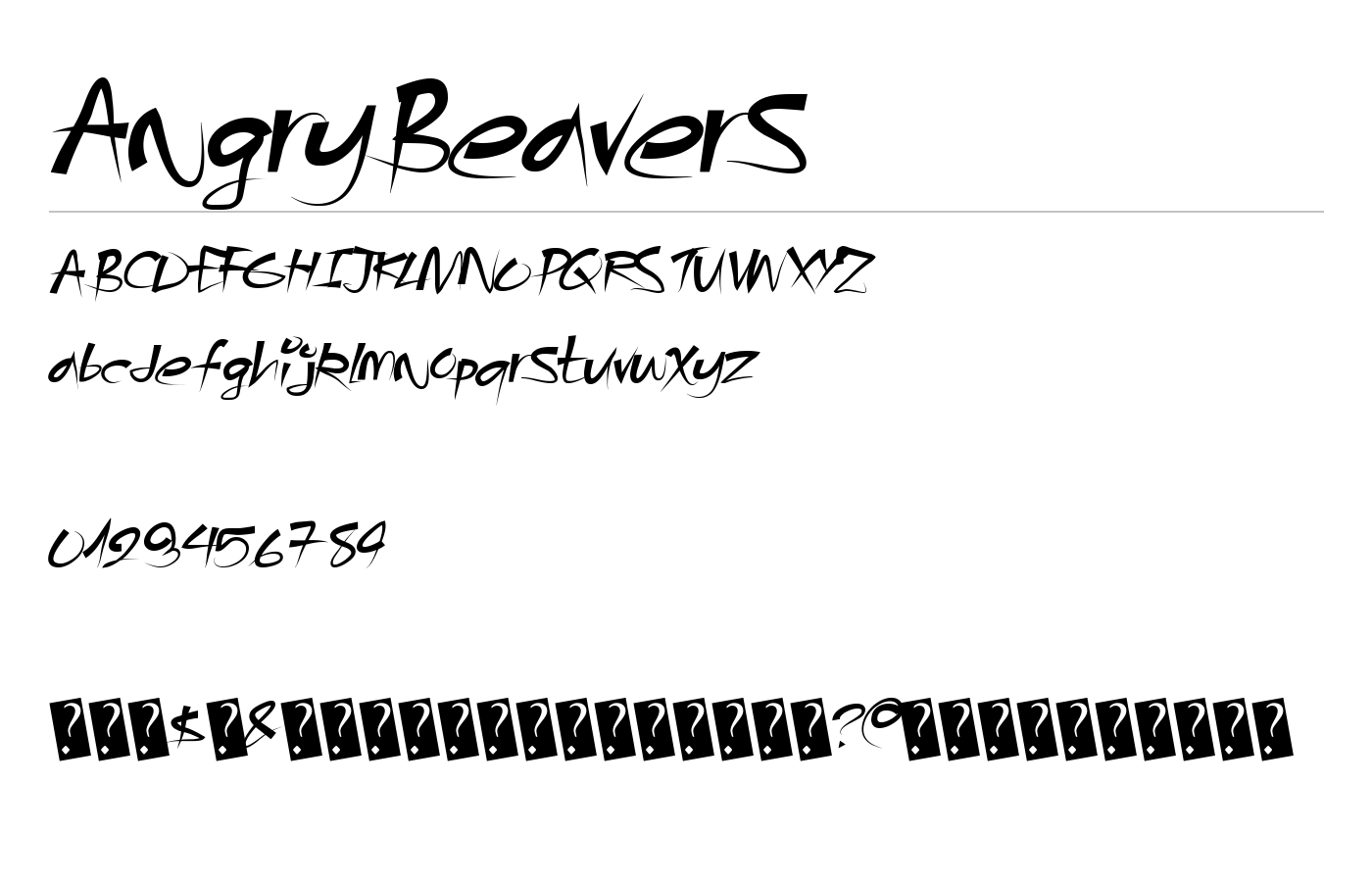
AngryBeavers is a playful and edgy handwritten sans serif font that features sharp, uneven strokes and a dynamic, energetic style. With its irregular letterforms and lively character, it conveys a rebellious, informal vibe that works well for fun, creative projects like cartoons, posters, or youth-oriented branding. This font stands out in display use where personality and a casual, spirited mood are desired.
AngryBeavers Font
About AngryBeavers Font